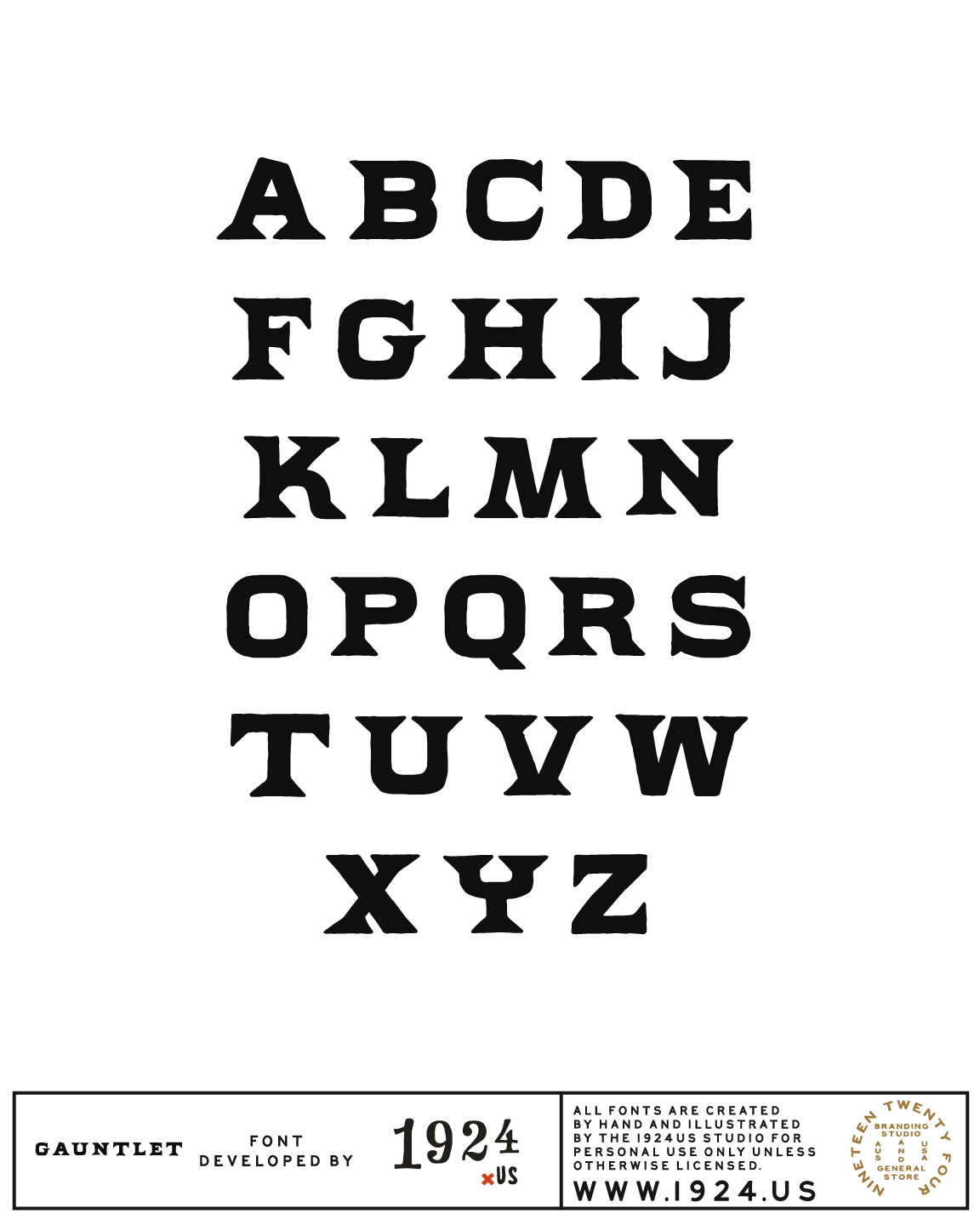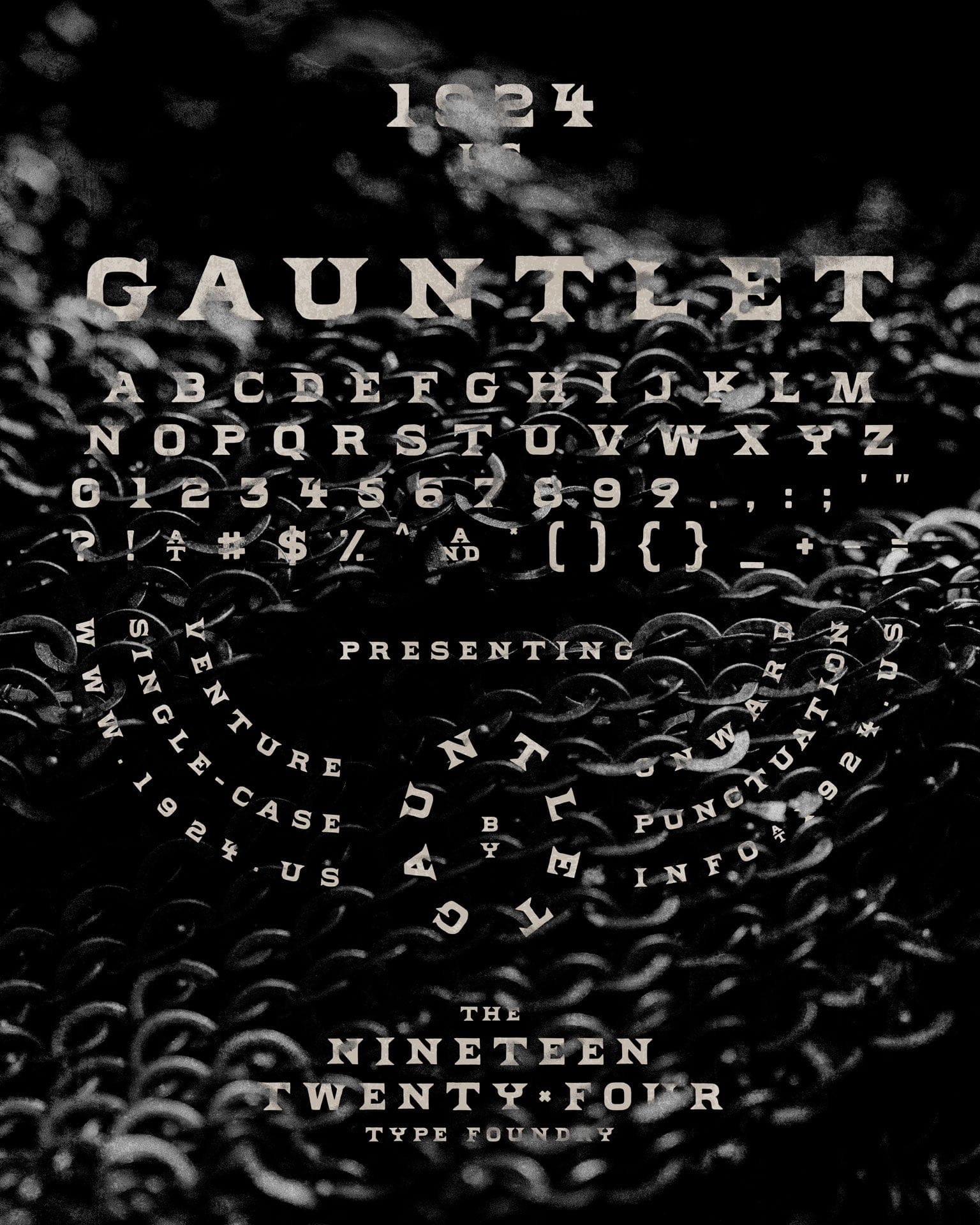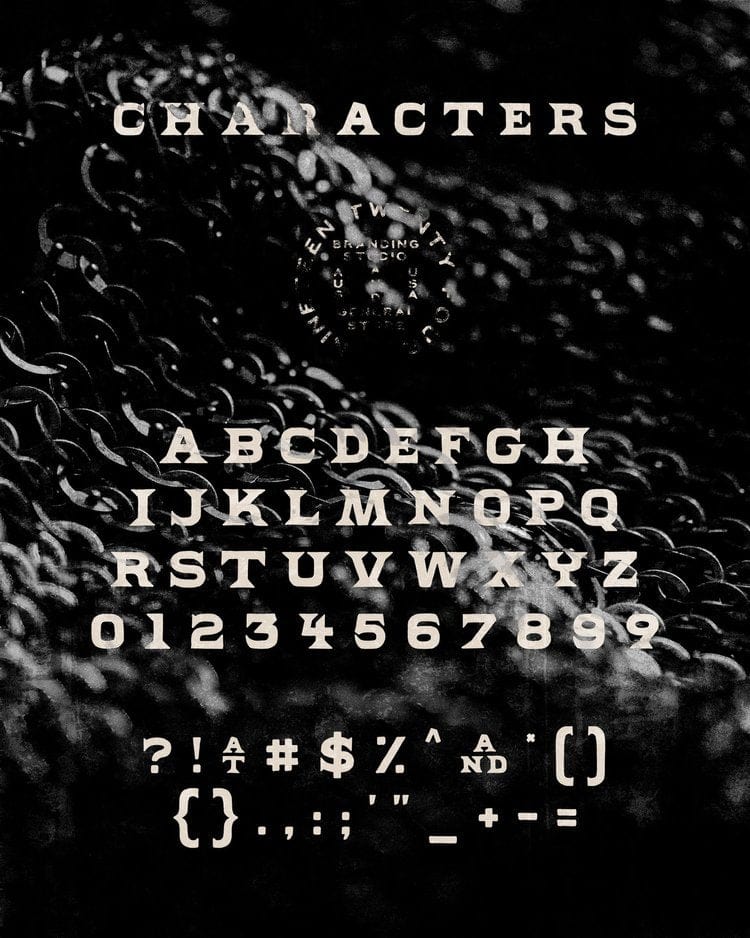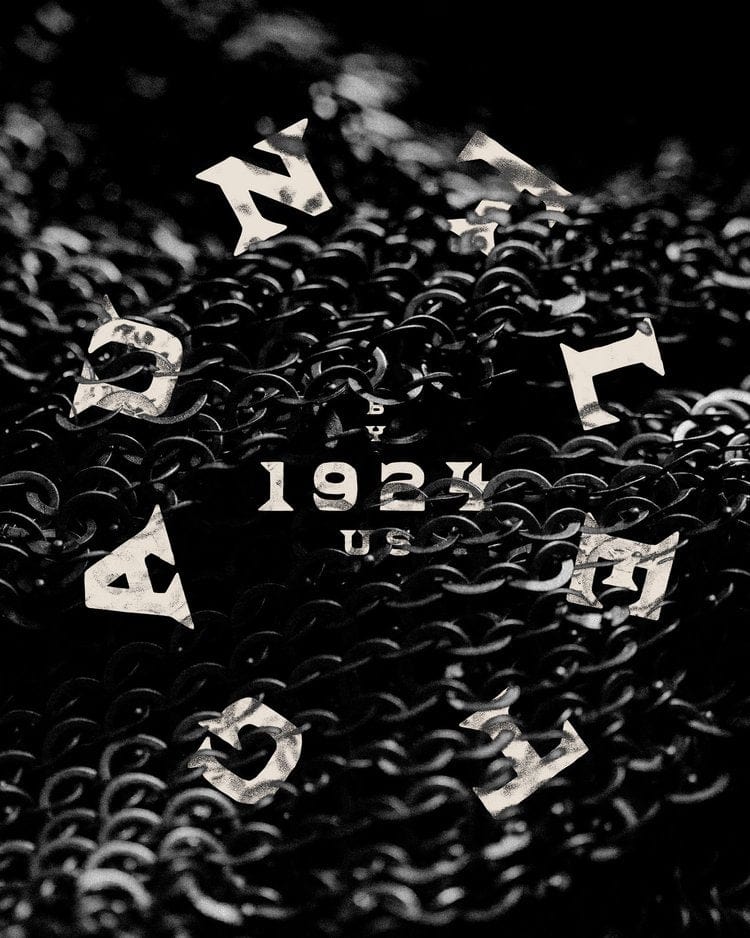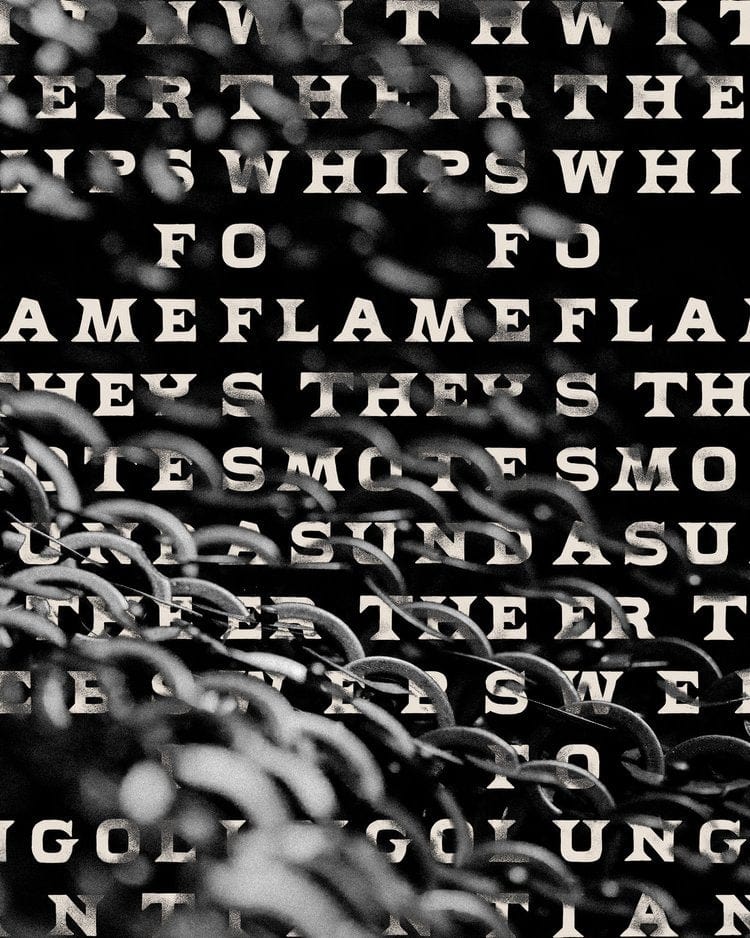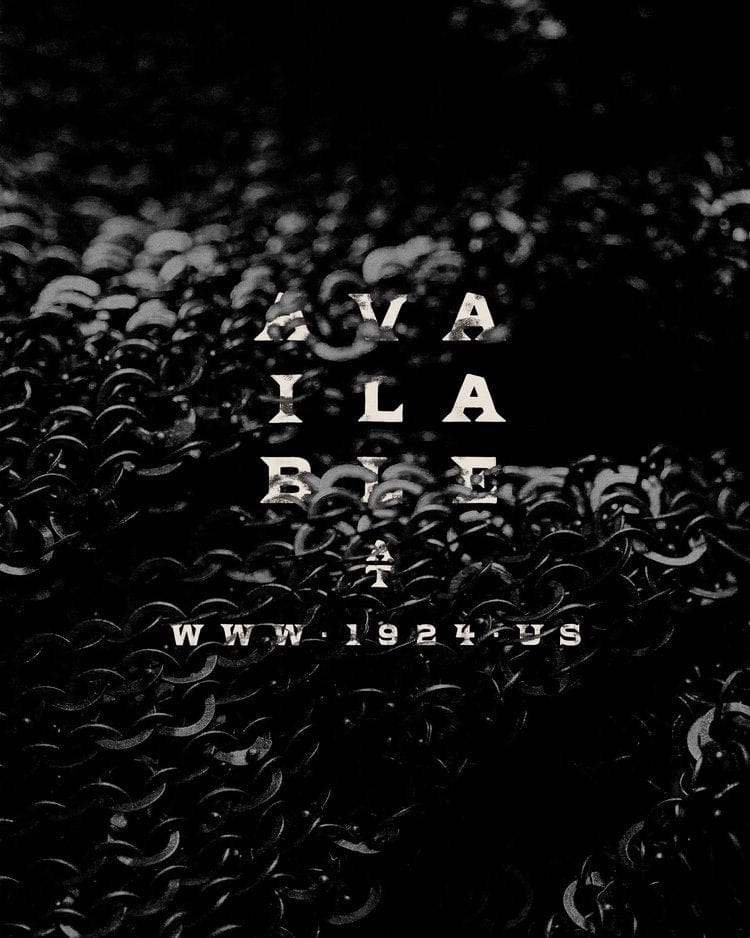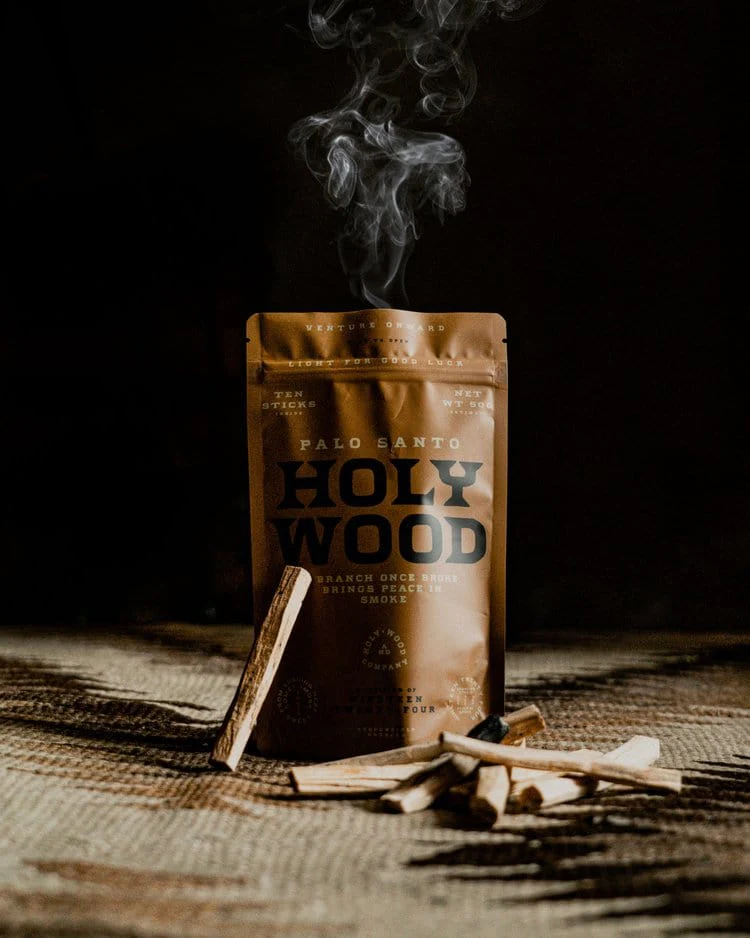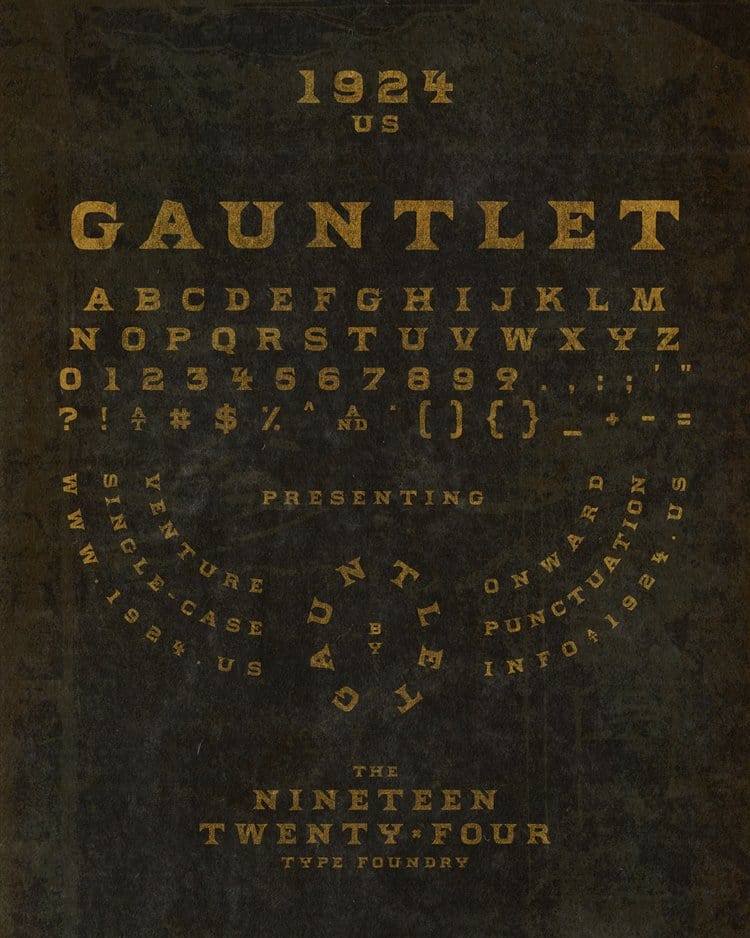
Gauntlet Font by 1924us
The 1924 Type Foundry is proud to present our latest creation: GAUNTLET.
A font that draws from antiquity, Gauntlet is an aesthetic fusion of medieval stone-cut engravings and 19th century wood block-letter typesets.
Featuring oversized traditional Latin wedge serifs, a bold, low-contrast line weight and some lovely hand-drawn imperfection, the outcome is a versatile attention-getter, perfect for logos, packaging and signage!
Designed and crafted entirely by hand by the 1924us Studio.